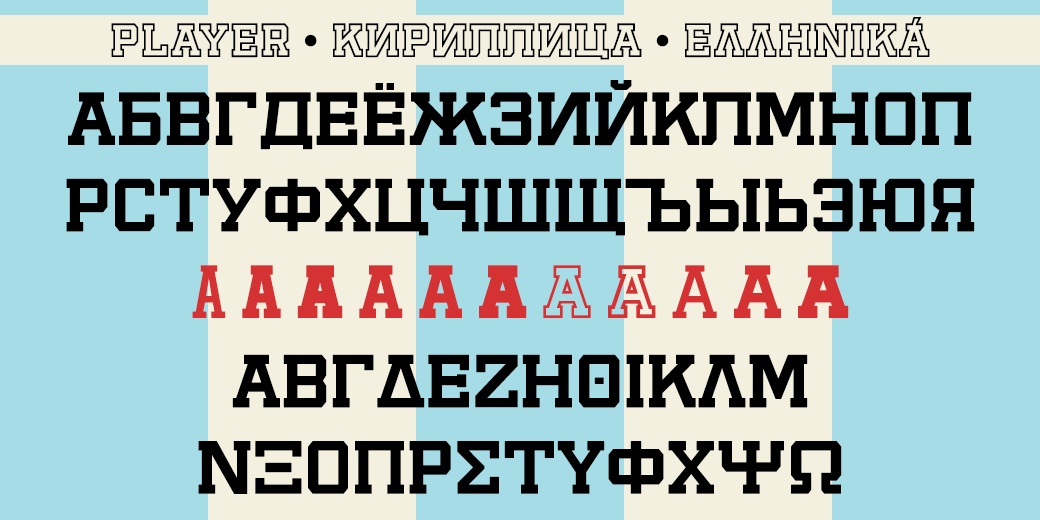
Player Font
Player Font is perfect for sports team branding, gaming organization logos, competitive esports marketing, athletic equipment packaging, professional sports communications, player merchandise design, tournament event graphics, and dynamic competitive campaigns.
What makes Player Font exciting is its competitive edge that embodies the focused determination and athletic excellence of professional competition with player authenticity and performance spirit. The font features dynamic letterforms with athletic proportions and competitive character that evoke game-winning moments, championship victories, and the relentless pursuit of excellence in sports and competitive gaming. Its distinctive player styling and competitive appeal communicate skill, determination, and peak performance, making every message feel powered by competitive drive and touched by the victorious energy of professional athletes and elite players.
The Player Font family includes regular weight with uppercase and lowercase letters, numerals, punctuation marks, and comprehensive sports symbols. Premium versions often feature multiple weights and competitive alternates that enhance the athletic, performance aesthetic perfect for sports and gaming applications.
This dynamic competitive typeface brings instant authenticity and athletic credibility to any player-focused project. Player Font Free Download offers exceptional value for sports organizations and gaming companies seeking to communicate competitive excellence, player performance, and athletic professionalism to athletes and competitive gaming audiences.
The competitive character of Player Font makes it particularly valuable for professional sports teams, esports organizations, and athletic performance companies. Its excellent readability ensures player messaging and competitive communications remain clear while maintaining the distinctive athletic aesthetic that appeals to athletes seeking authentic competitive experiences and performance excellence.
Sports performance marketers appreciate how Player Font effortlessly conveys athletic authenticity and competitive spirit. The font's dynamic proportions and player details create powerful brand materials that establish connections with audiences who value athletic performance, competitive gaming, and the determined excellence of professional players and competitive athletes.
The versatile competition of this typeface extends to athletic training, gaming education, and performance coaching where player authenticity enhances competitive credibility and athletic appeal. Player Font Free Download provides creative professionals with an essential tool for developing memorable, performance-driven designs that resonate with audiences who embrace competitive excellence, athletic achievement, and the dynamic energy of player performance in their sports and gaming experiences.